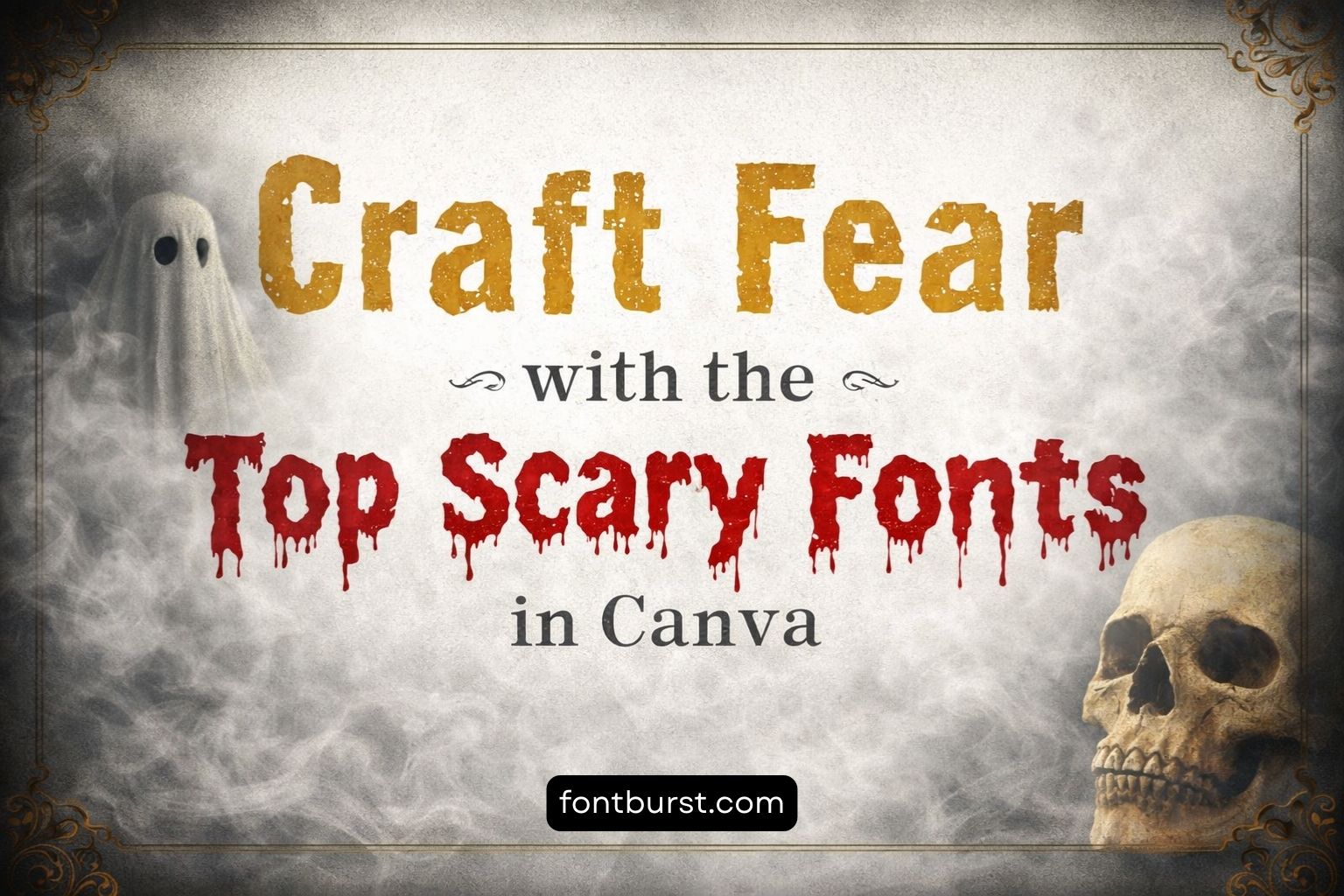
Craft Fear with the Top Scary Fonts in Canva
Do you want to make your designs scarier? Check out top scary fonts in Canva! The right font can make all the difference when you’re making Halloween posters, a scary invitation, or a creepy post on social media. Scary fonts can help set the mood and get people’s attention right away.
When you use scary fonts, your text will stand out because of their unique style. They are great for setting a scary and mysterious mood. Let’s look at some of the scariest fonts you can use in Canva to make your designs more scary.
Why design with scary font
Use scary fonts to make your designs a little more scary and exciting. They’re not just different; these fonts make your text look creepy and easy to remember. When you use them, a simple message can become something that stands out and stays in your mind. They make your designs fun and scary at the same time, which makes them great for horror events and themes.
Picking Out Scary Fonts
Before you pick a scary font, think about how and where you’ll use it. Even if the font looks scary, make sure you can read it. Mix scary fonts with less scary ones to keep your design simple. Think about the people who will see your design to make sure it makes a good impression.
Create Fear with the Best Scary Fonts in Canva
Scary Stories Font
Scary Stories Font is great for making a scary atmosphere. It looks creepy and lived-in, which makes any text feel scary.
Butcherman Font
It looks like the Butcherman Font was rough-cut. It’s great for giving your designs a rough, edgy look, which is great for horror themes.
Hellprint Font
The look of Hellprint Font is fiery and strong. It works great for designs that need a scary, strong touch.
Jeepers Font
The Jeepers Font has a scary, rough look to it. It gives your text a creepy look by making it look like it’s shaking with fear.
Amstrong Font
This font is big and scary. Because its lines are thick and sharp, it’s great for drawing attention to any scary design.
Charu Chandan Blood Drip Font
The dripping letters in Charu Chandan Blood Drip Font make it feel scary. This tool is great for giving your text a horrifying look.
The Mariam Font
The Mariam Font looks like an old-school scary book. It’s great for giving your designs a creepy, old-fashioned look.
Drunken Hour Font
The Drunken Hour Font looks skewed and jumbled. It works great for giving your designs a crazy and confused look.
Macabro Danger Font
The Macabro Danger Font looks scary. It’s great for making your text feel scary and dangerous.
Nectarine Font
Nectarine Font looks like it was handwritten, which is creepy. It’s great for making your designs look like they belong in a scary movie.
Postmark Font
It looks like Postmark Font has been used a lot. It’s great for giving your text an old, creepy feel.
Tallow Sans Pen Font
The look of Tallow Sans Pen Font is rough and scratchy. It works great for giving your designs a creepy and mysterious feel.
Wrapping up
When you use scary fonts in Canva, your designs can look completely different and be perfect for any scary event. You can use these fonts to make people feel scared and tense, which will get their attention. Pick fonts that fit your message and make sure the text is easy to read.